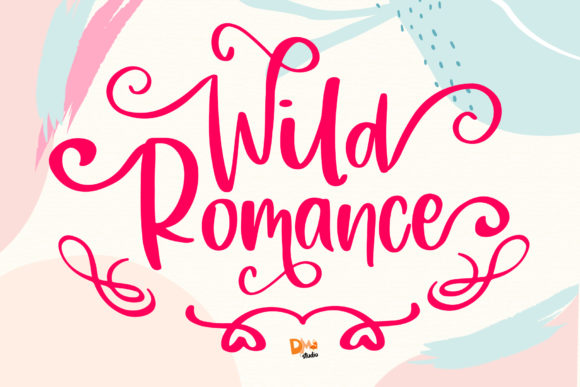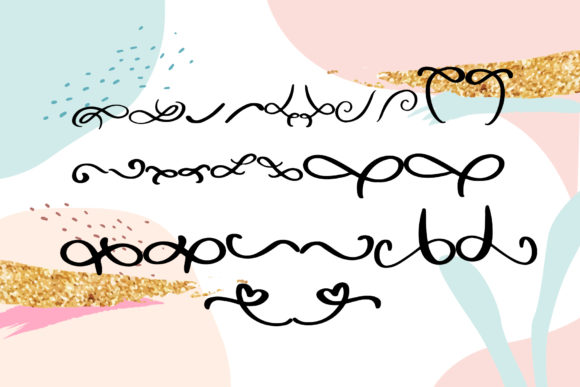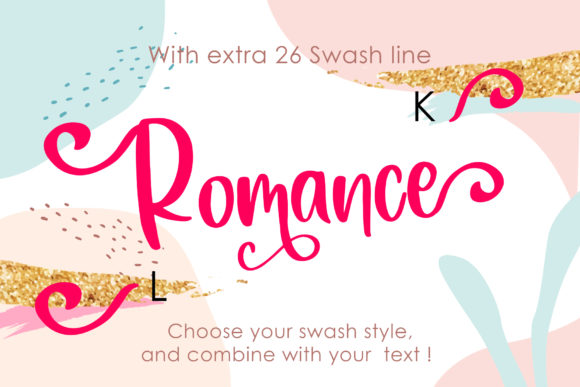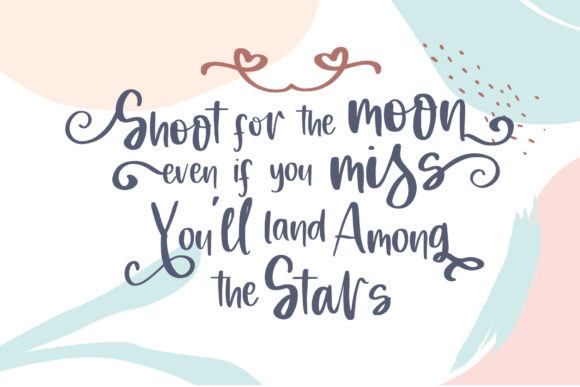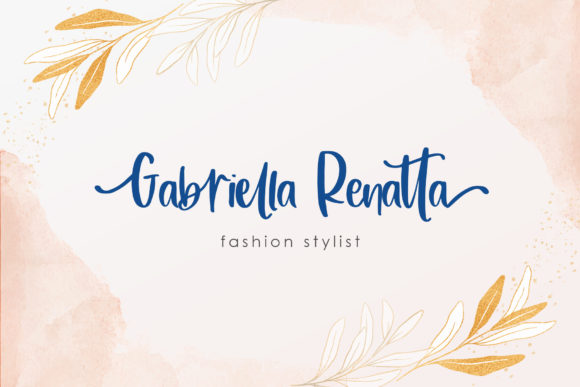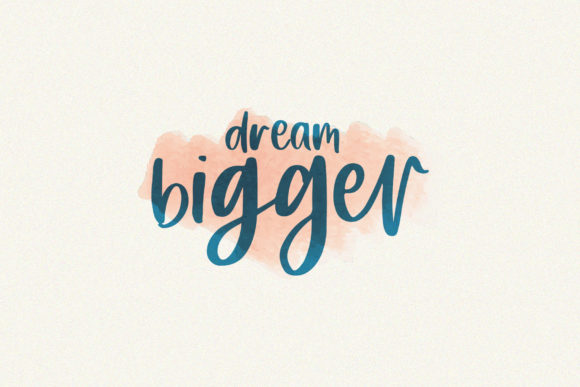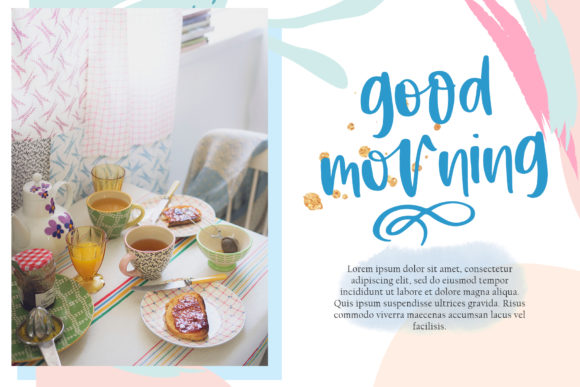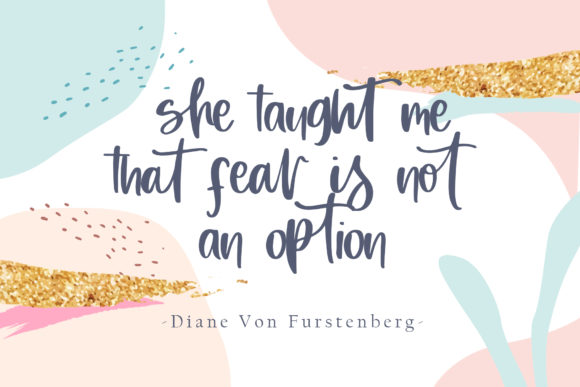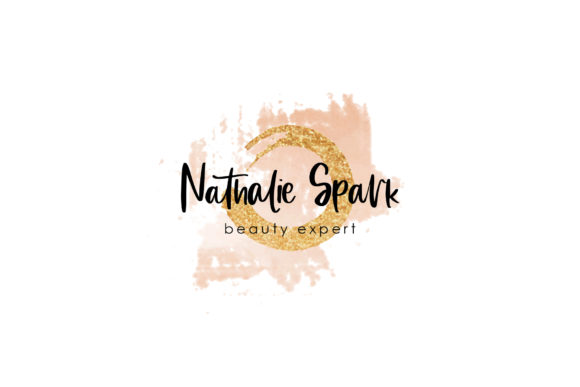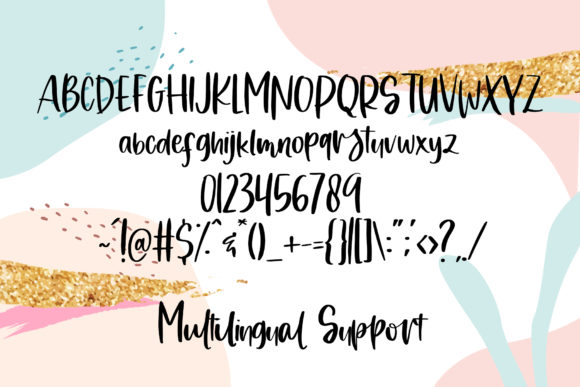
Wild Romance Font
About Wild Romance Font
Wild Romance embodies fun, quirkiness and authenticity. This stylish handwritten font features gorgeous swashes that make this script incredibly versatile.